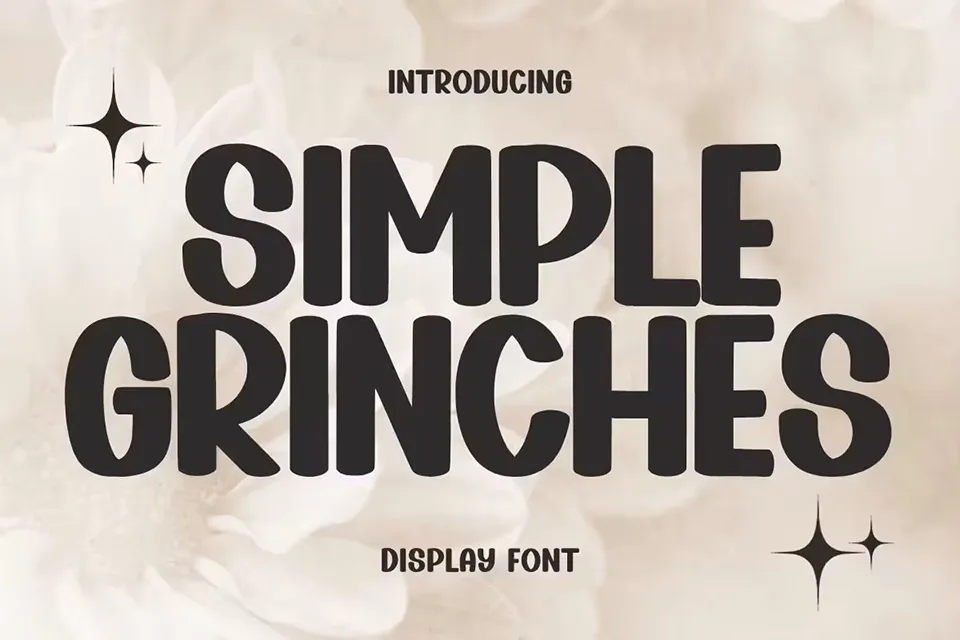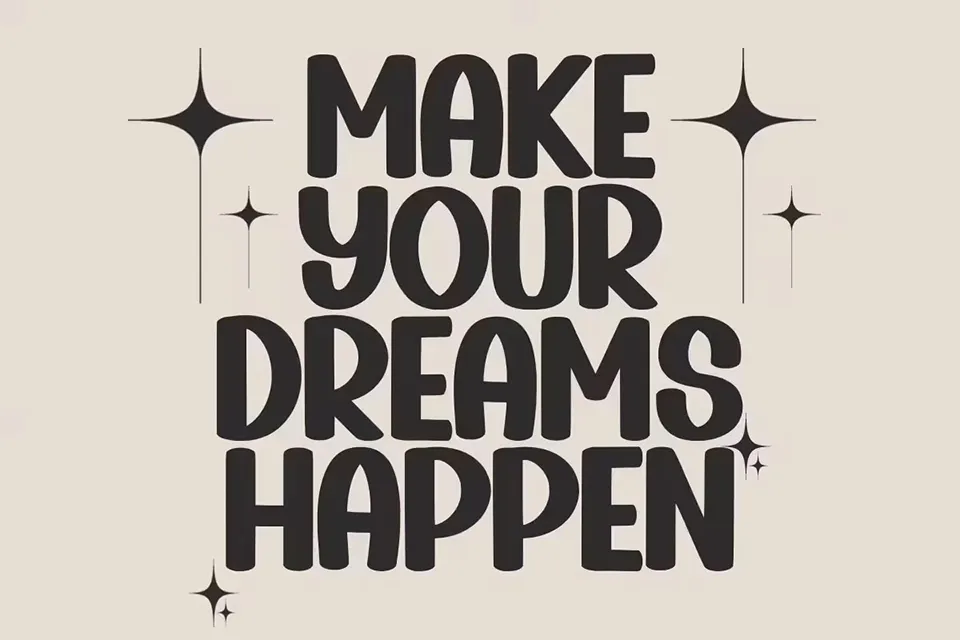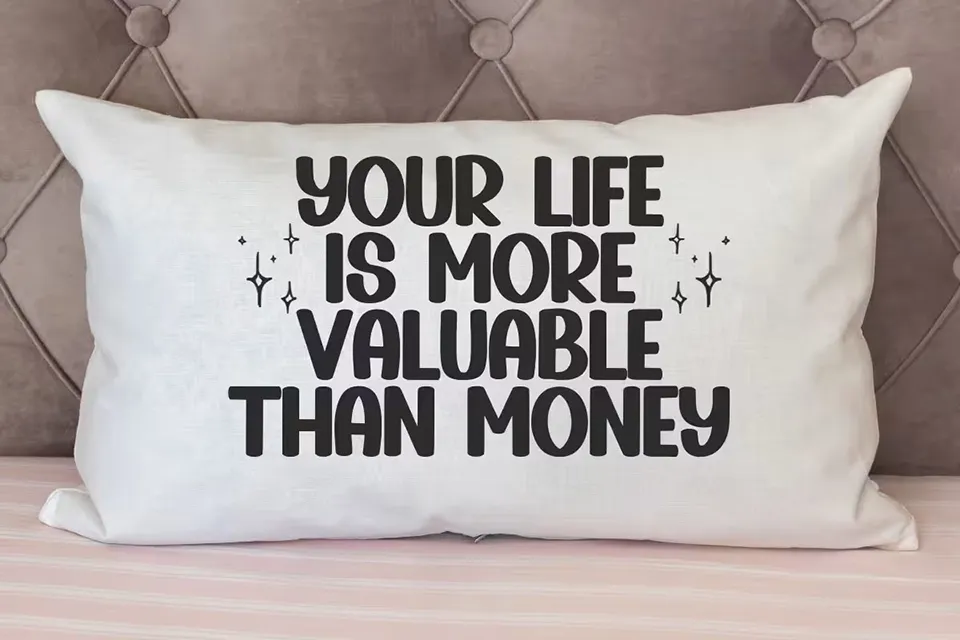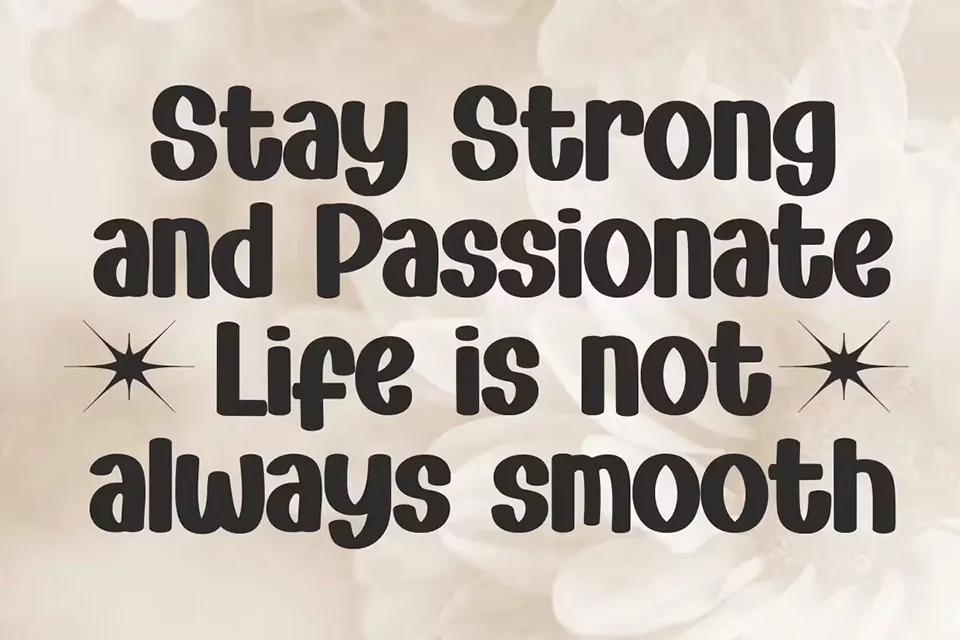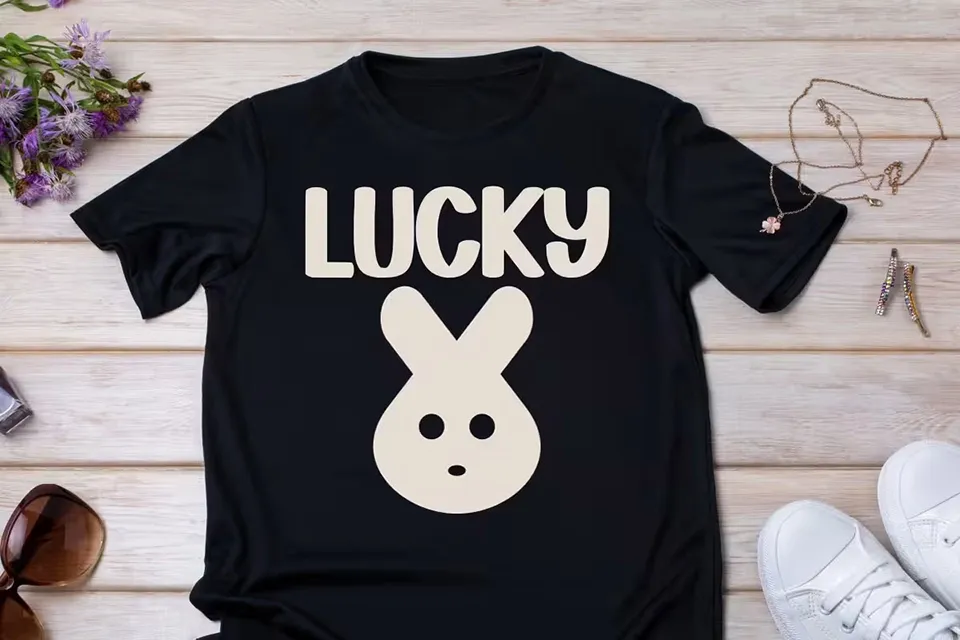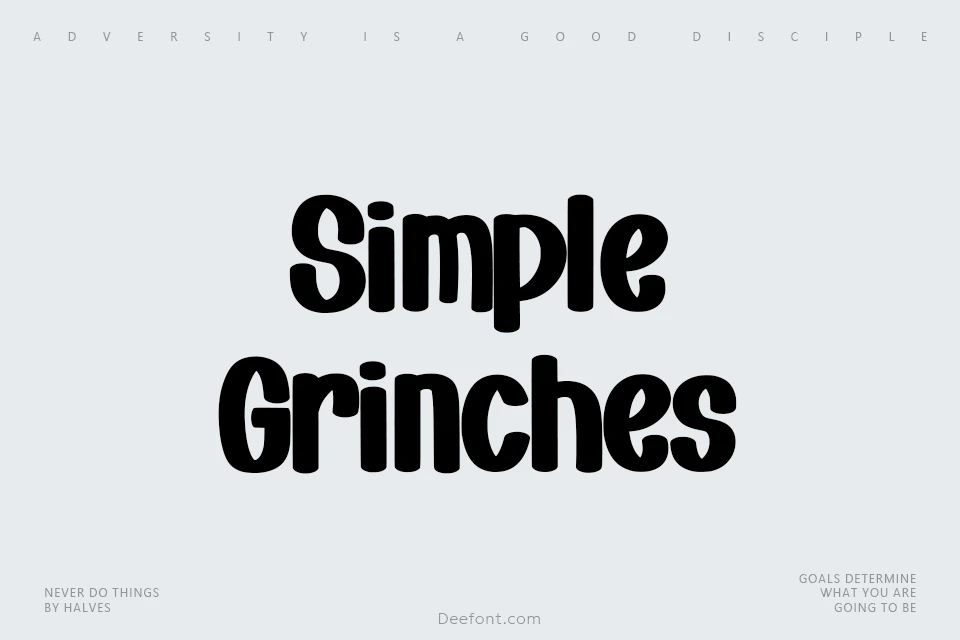
Simple Grinches Font
Simple Grinches Font is a playful and bold display typeface that radiates charm and creativity. With its rounded edges and quirky letterforms, it brings a fun, lighthearted vibe to any design project. Perfect for holiday themes, children’s projects, posters, or branding, this font adds a unique and cheerful touch that captures attention. Its bold structure ensures excellent readability while maintaining its whimsical personality. Simple Grinches Font is versatile and ideal for creating designs that stand out with a joyful and approachable aesthetic. Whether for personal or professional use, this font is sure to bring warmth and character to your work.